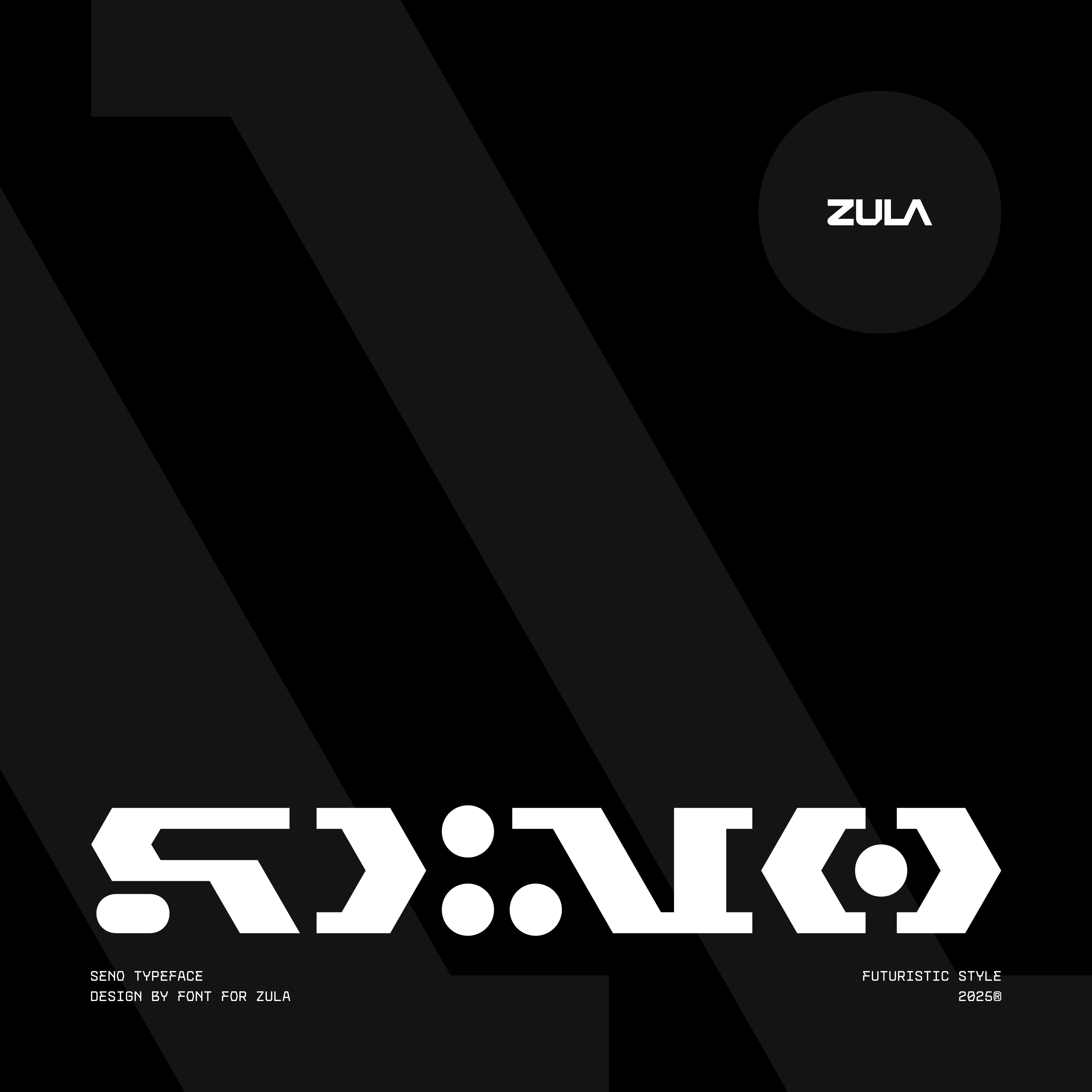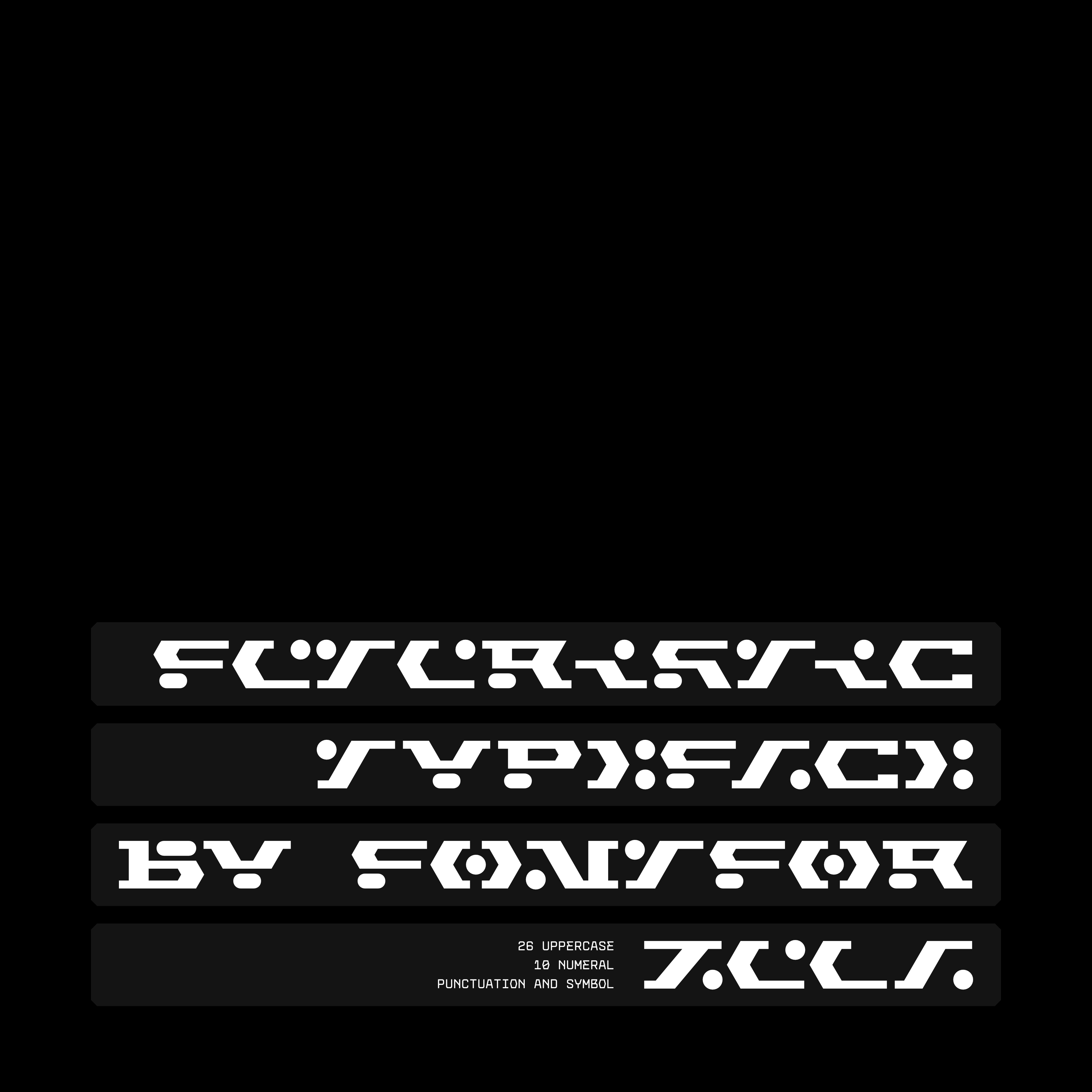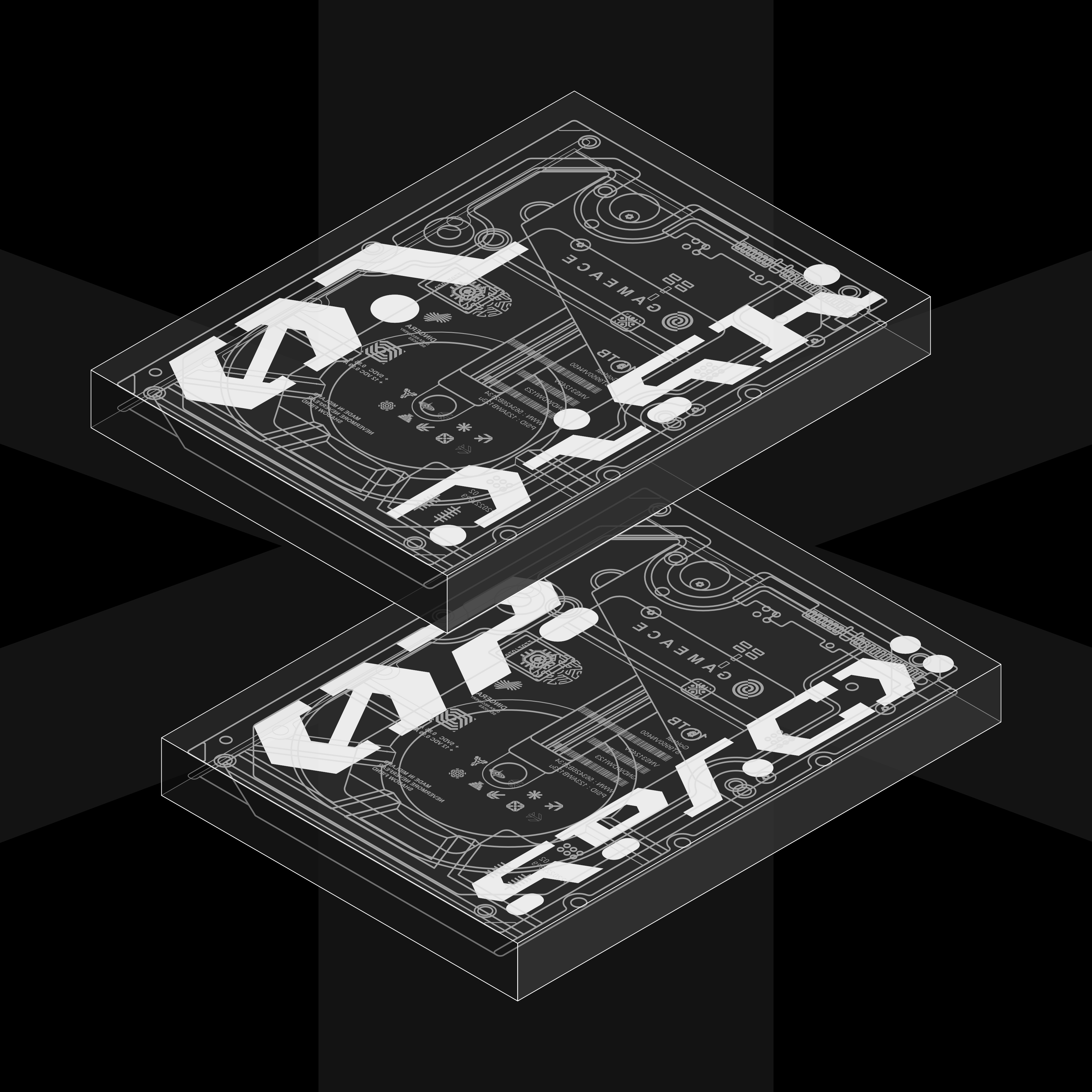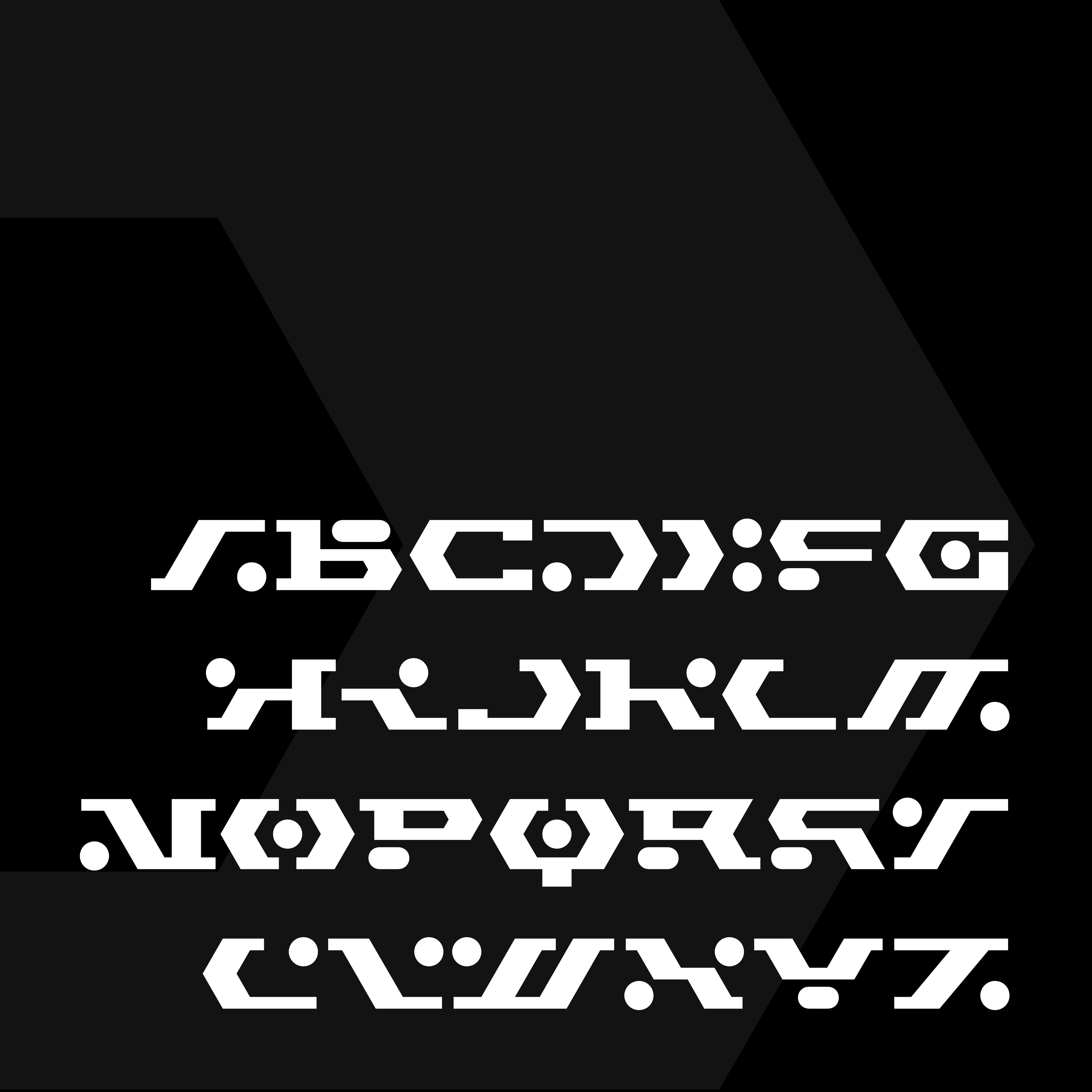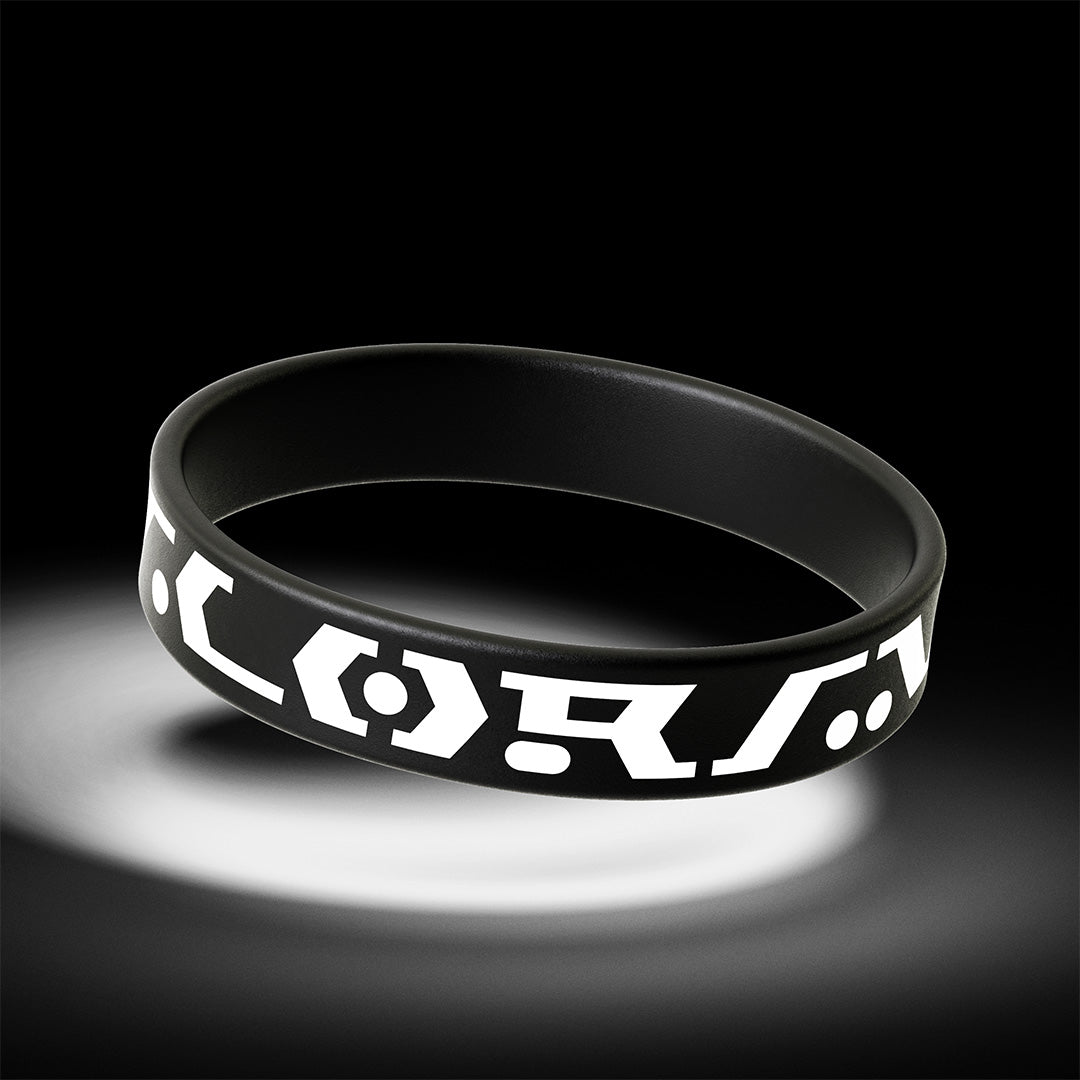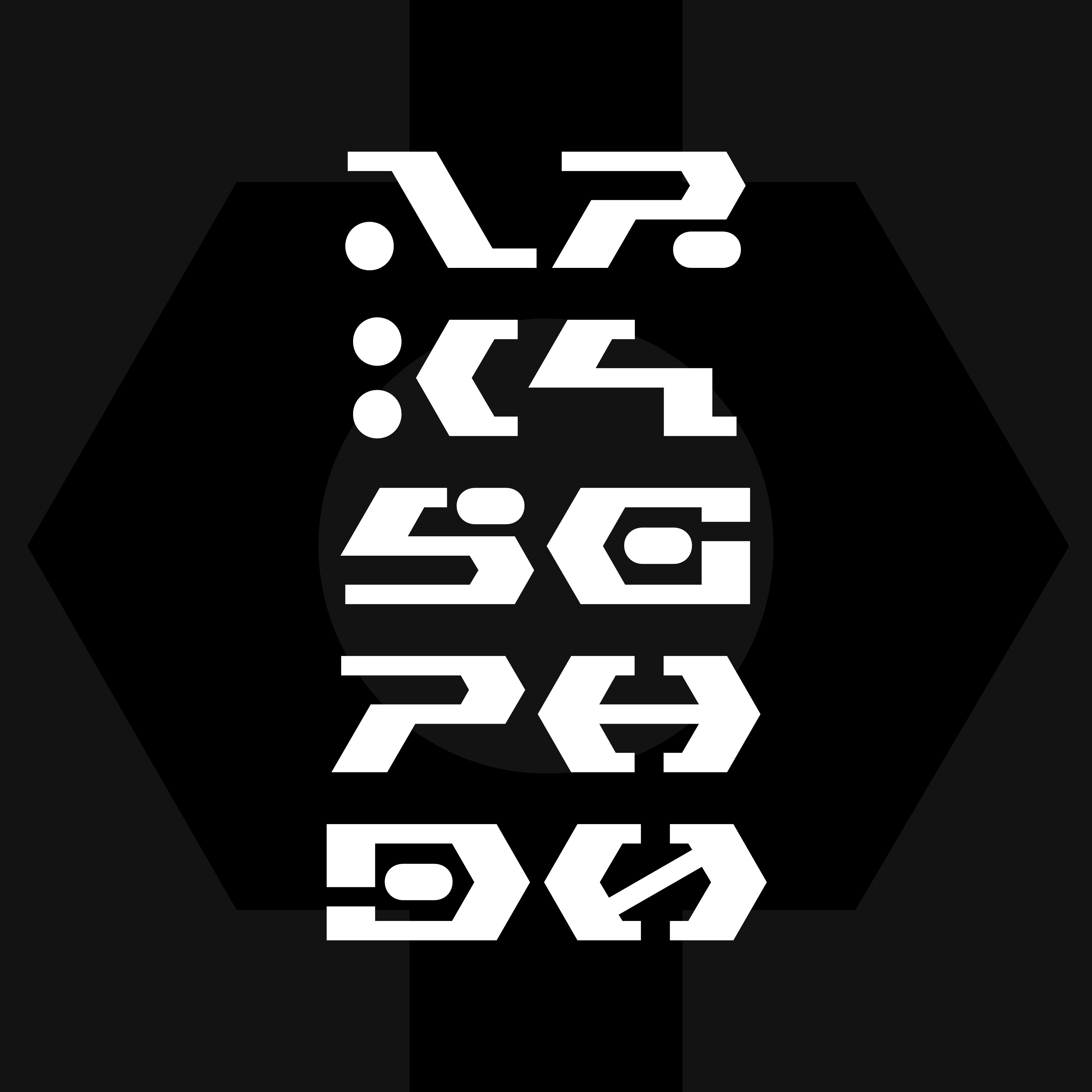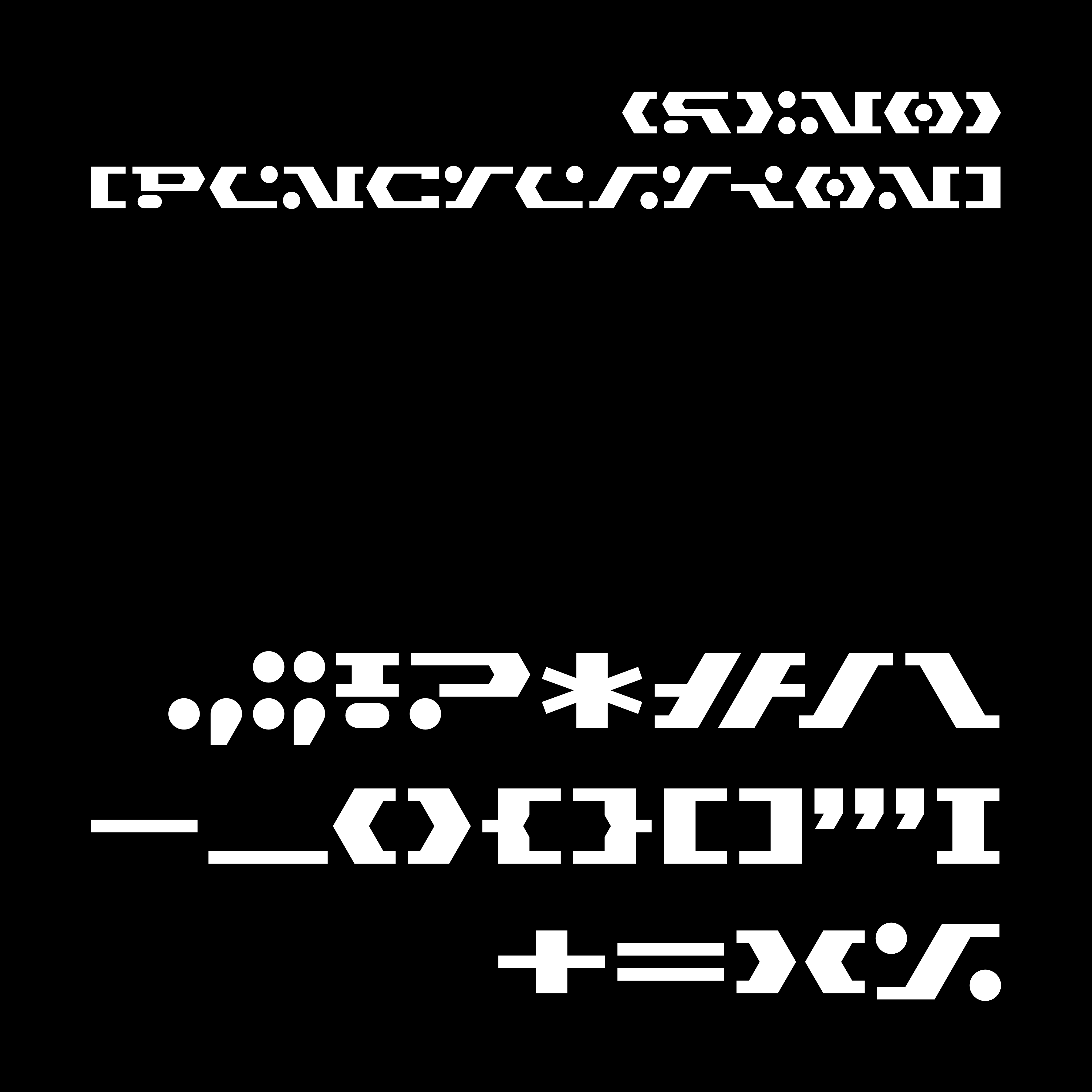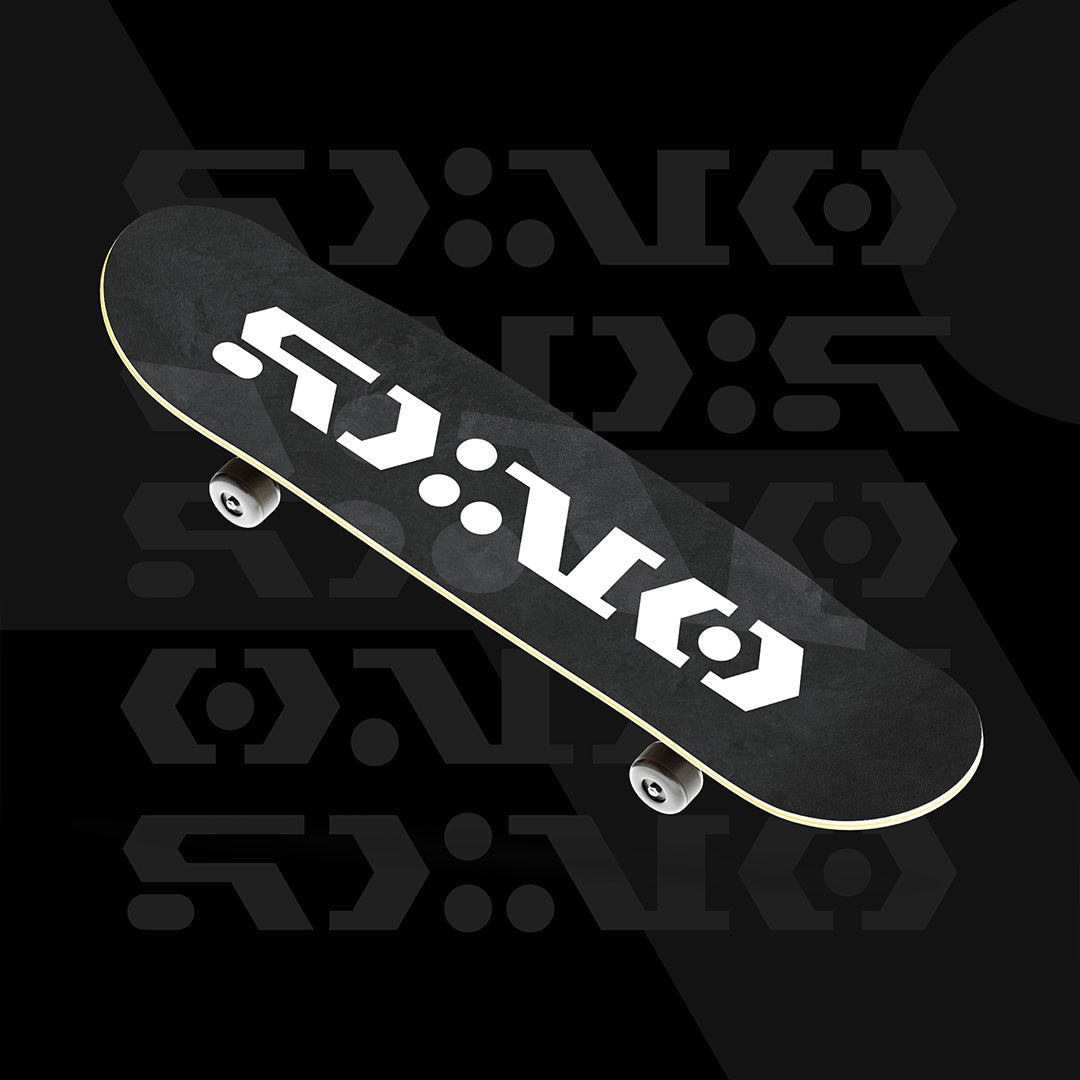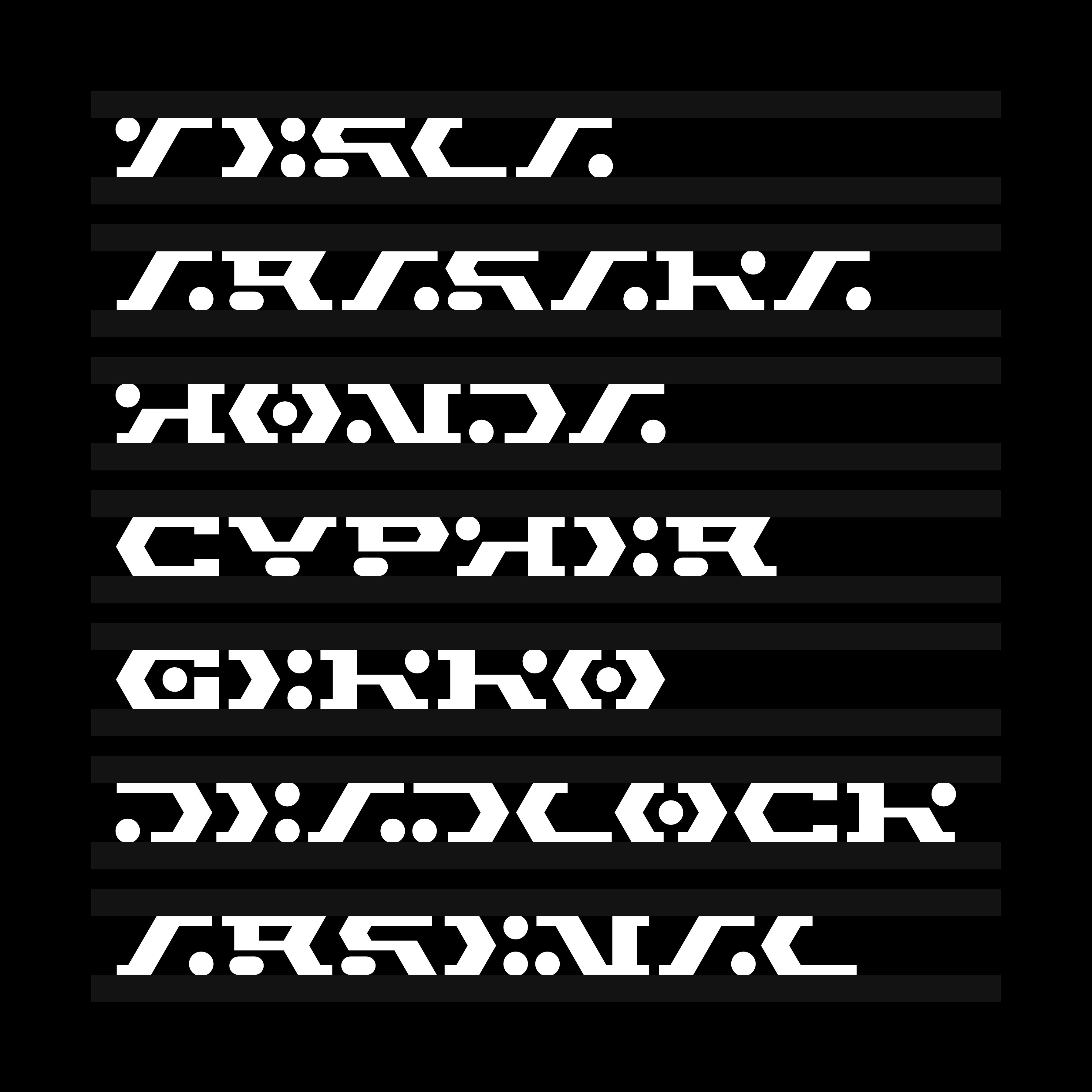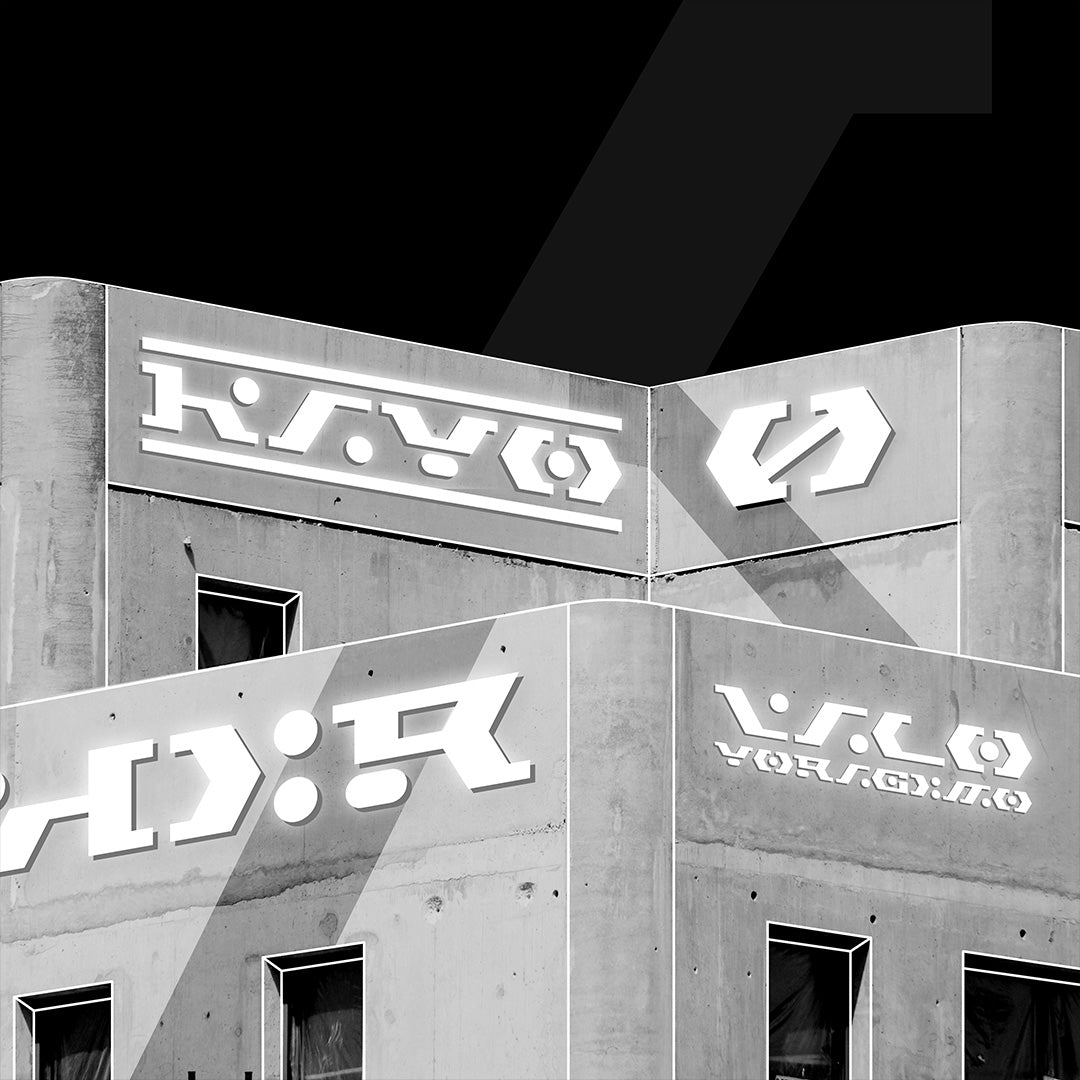
SENO Typeface
SENO Typeface, the letterform is inspired by a combination of lines and dots, engineered in such a way as to produce a very unique and futuristic appearance.
Suitable for use in various purposes such as logos, posters, apparel, and others.